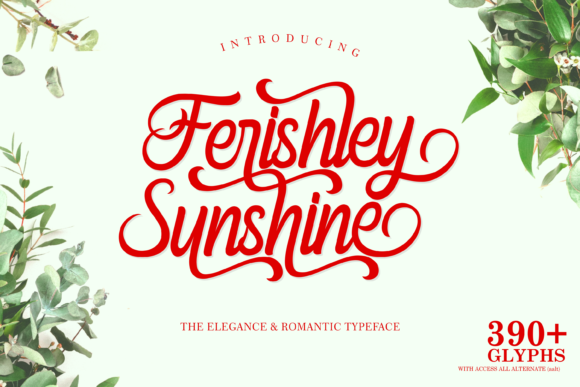
Have you ever found yourself lost in a creative moment, pouring over a blank canvas or a blank page, waiting for the perfect idea to strike? It’s those moments of inspiration that can lead to something truly special. For designers, it’s the search for that perfect font that can elevate a project from good to great. And that’s where the Ferishley Sunshine Font comes in – a beautiful script font that exudes elegance and romance.
Perfect for adding a personalized touch to your designs, the Ferishley Sunshine Font is a versatile tool that can be used for a wide range of applications, from wedding invitations to greeting cards. Its unique style and charm make it a valuable addition to any designer’s toolkit, allowing you to add a touch of whimsy and personality to your work.
Ferishley Sunshine Font Key Features
- Font Family: Ferishley Sunshine is a unique, handwritten font family with a cheerful and playful feel.
- Character Count: Includes 250+ characters, including uppercase and lowercase letters, numbers, and punctuation marks.
- Language Support: Supports Latin-based languages, including English, Spanish, French, and many more.
Ferishley Sunshine Font Review
I’ve had the chance to work with the Ferishley Sunshine Font, and I must say it’s a unique and charming addition to any design project. ✨ The font’s playful, handwritten feel instantly conveys a sense of warmth and approachability. The varying line widths and subtle flair at the ends of strokes give it a hand-drawn quality that’s hard to resist.
One of the standout features of Ferishley Sunshine is its versatility. ✨ It works equally well for titles, headings, and even body text, making it a great choice for designers who need a single font to cover a range of content types. The font also comes in a range of weights, from Light to Bold, which adds to its flexibility.
- ⚠️ Legibility can be an issue at smaller font sizes, so it’s essential to test the font carefully before using it in body text.
- ⚠️ The font may not be suitable for formal or corporate designs, as its playful nature can come across as unprofessional in certain contexts.
Overall, I’m a fan of the Ferishley Sunshine Font. Its charm and versatility make it a great choice for designers who want to add a touch of personality to their projects. While it may not be the best fit for every design, it’s definitely worth considering for projects that require a warm, approachable feel.
Ferishley Sunshine Font: A Practical Application Guide
Tips for Getting the Most Out of Ferishley Sunshine Font
Experiment with different font sizes and styles to create visual interest. Pair the font with high-quality images and graphics to enhance the design. Consider using the font for headings and titles, reserving more formal fonts for body text.
The Ferishley Sunshine Font is ideal for creative projects, such as social media graphics, blog posts, and marketing materials. Its playful, handwritten style is perfect for capturing attention and conveying a sense of friendliness and approachability.
Q: Can I customize the Ferishley Sunshine Font for my specific design needs?